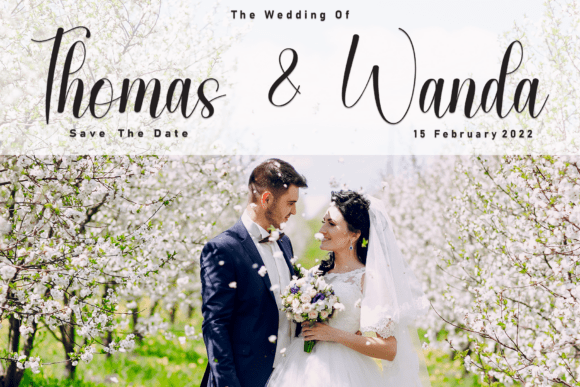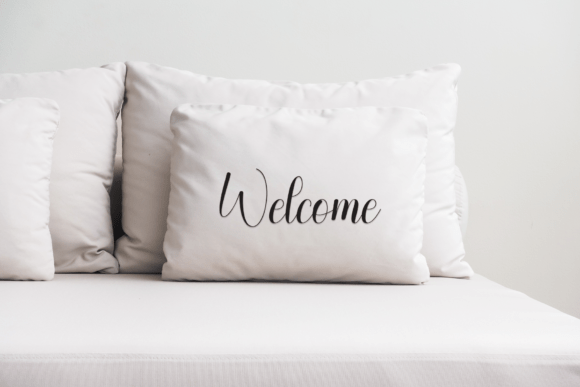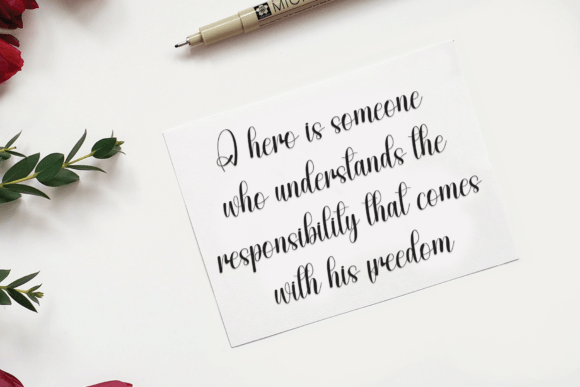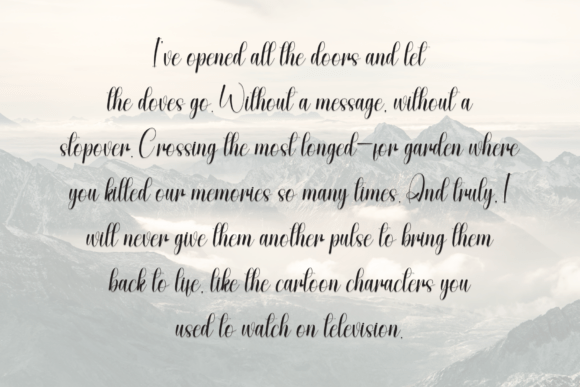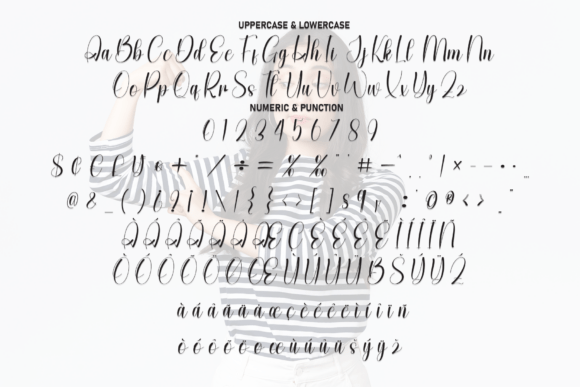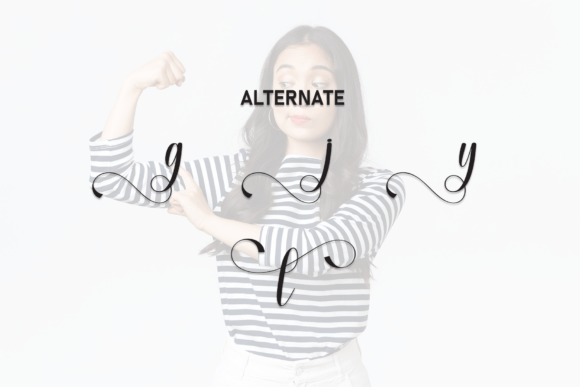
The Amstrong Font: A Sweet and Friendly Handwritten Display Font
I’ll never forget the time I was working on a wedding invitation project, and my client asked for a font that was “sweet, friendly, and playful.” I scoured the internet, tried out dozens of fonts, but nothing seemed quite right. That was until I stumbled upon the Amstrong Font. It’s been a game-changer for me ever since! In this article, I’ll share my experience with this enchanting font, its features, and how to make the most of it in your designs.
A Personal Review: What I Love About Amstrong Font
Here’s what makes Amstrong Font a standout in my book:
- ✨ Sweet and Friendly: The font has a lighthearted allure that’s perfect for wedding invitations, greeting cards, and other designs that require a touch of warmth and personality.
- ✅ Playful Essence: Amstrong Font effortlessly brings a dash of joviality to your designs, making it ideal for creative projects that need a fun touch.
- 💕 Charming and Delightful: The font’s handwritten display style is charming and delightful, making it perfect for designs that require a personal touch.
While Amstrong Font is an excellent choice for many designs, there are a few things to keep in mind:
- 🤔 Limited Use in Small Sizes: Like many handwritten fonts, Amstrong Font may not be the best choice for small sizes, as it can become difficult to read.
- ⚠️ Occasional Kerning Issues: Some users have reported occasional kerning issues, particularly when using the font in certain software or platforms.
The Amstrong Font was designed with the intention of creating a sweet and friendly handwritten display font that’s perfect for a variety of designs. The designer aimed to create a font that’s both charming and delightful, with a playful essence that’s hard to resist.
Q: What is the Amstrong Font best used for?
A: The Amstrong Font is best used for designs that require a sweet, friendly, and playful touch, such as wedding invitations, greeting cards, and other creative projects.
Q: Is the Amstrong Font suitable for small sizes?
A: While the Amstrong Font can be used in small sizes, it may not be the best choice, as it can become difficult to read.